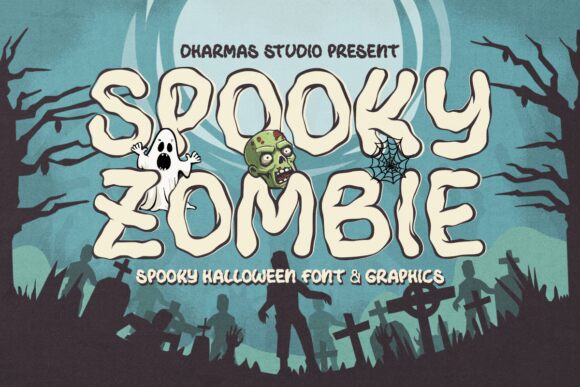
Spooky Zombie font by Dharmas Studio is a halloween font featuring heavy grungy capital letters whose outer and inner cutouts create a gory nature that excites. The style produced is irregular, organic, and creepy which are great qualities for visual projects related to Halloween. Engage the target audience by adding some atmospheric hints that go well with horror-themed games, graphic novels, PowerPoint presentations or social media visuals.
Free dark artworks that can be designed include food packaging related to the holiday season and all its festivities. Posters, flyers, invitations as well as greeting cards are already covered if you choose to use this font with all sorts of print or digital ideas! Mix it with graphic elements like cartoon characters or skeletons to complete your finalized ideas.